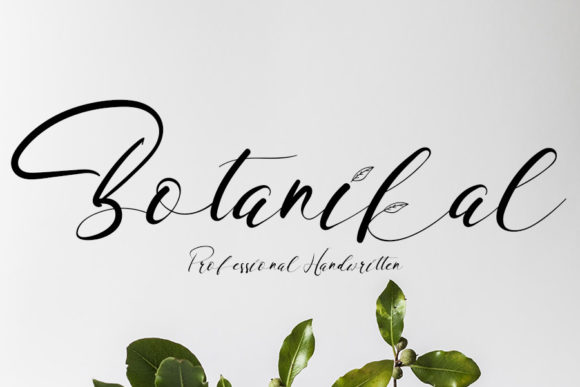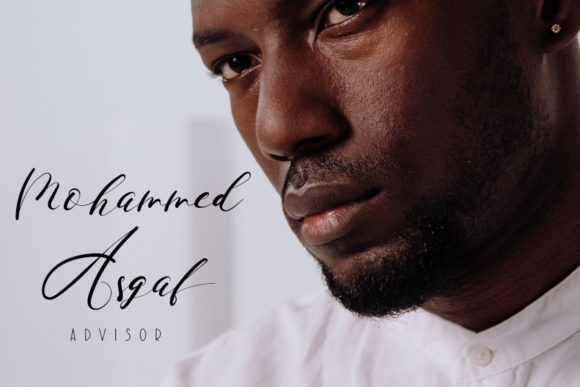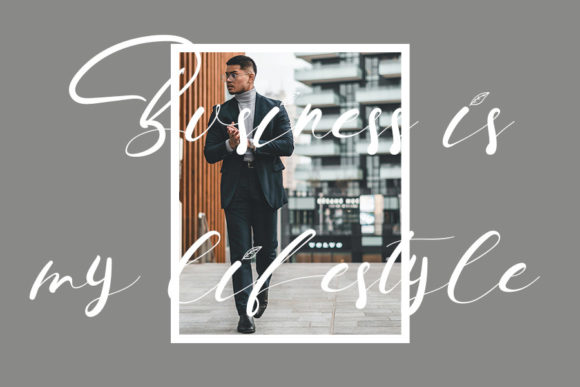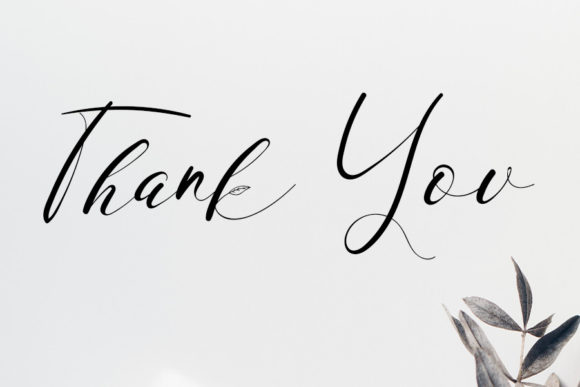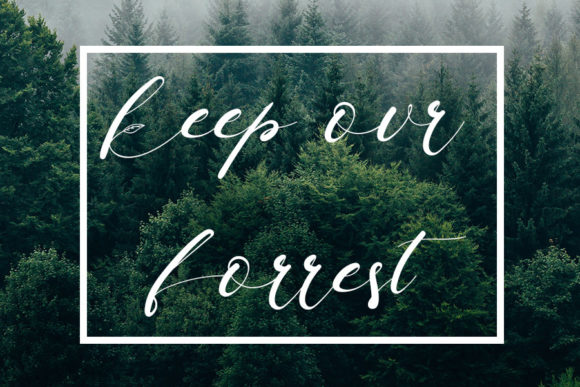
Botanikal Font
About Botanikal Font
Botanikal is a delicate and thin lettered handwritten font. It has a modern and unique style and it will undoubtedly immerse your designs into a magical world.